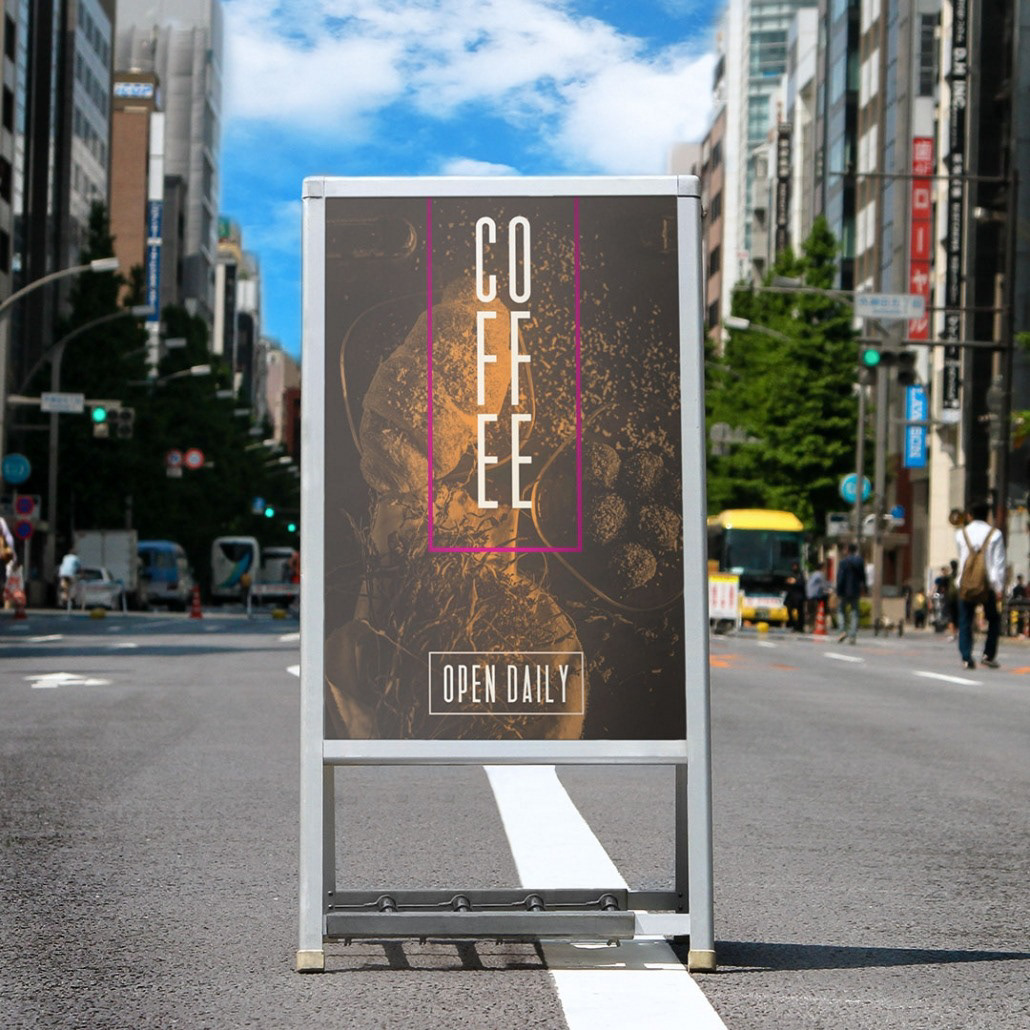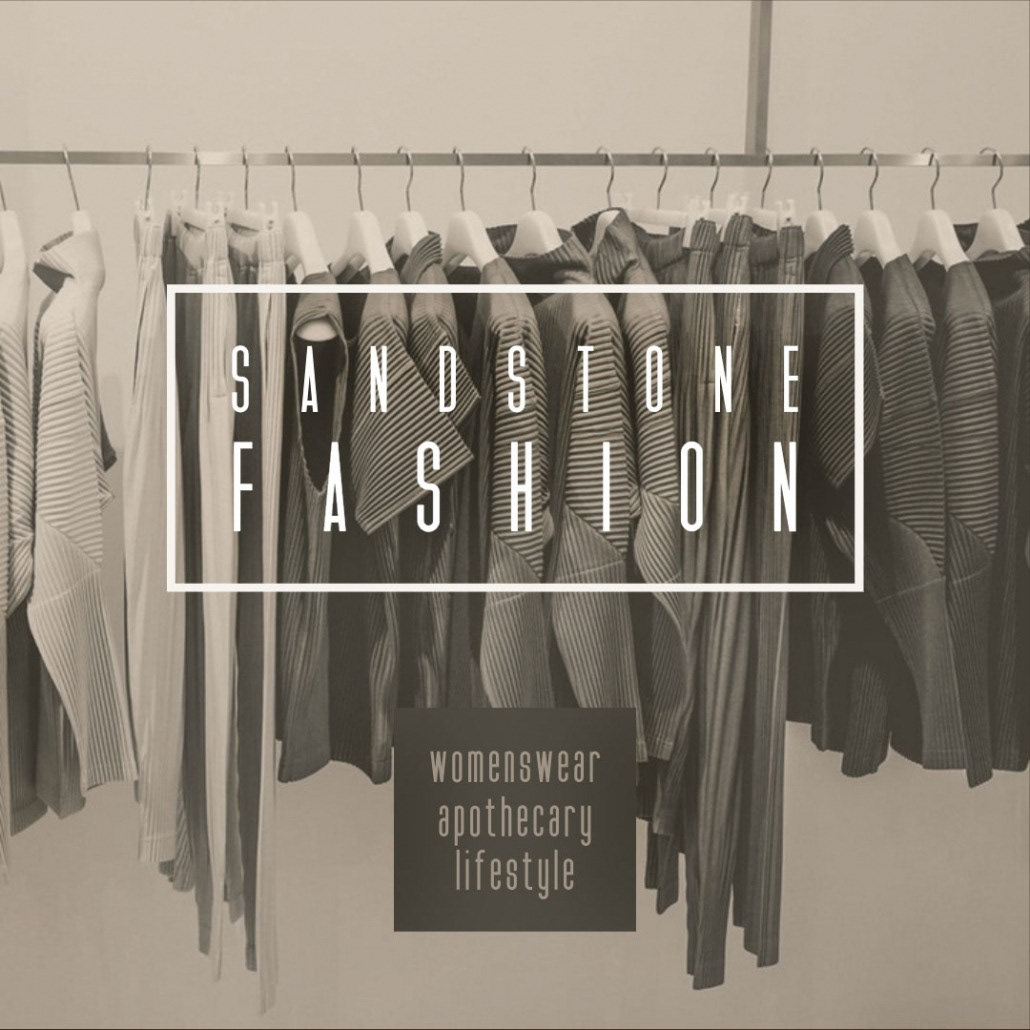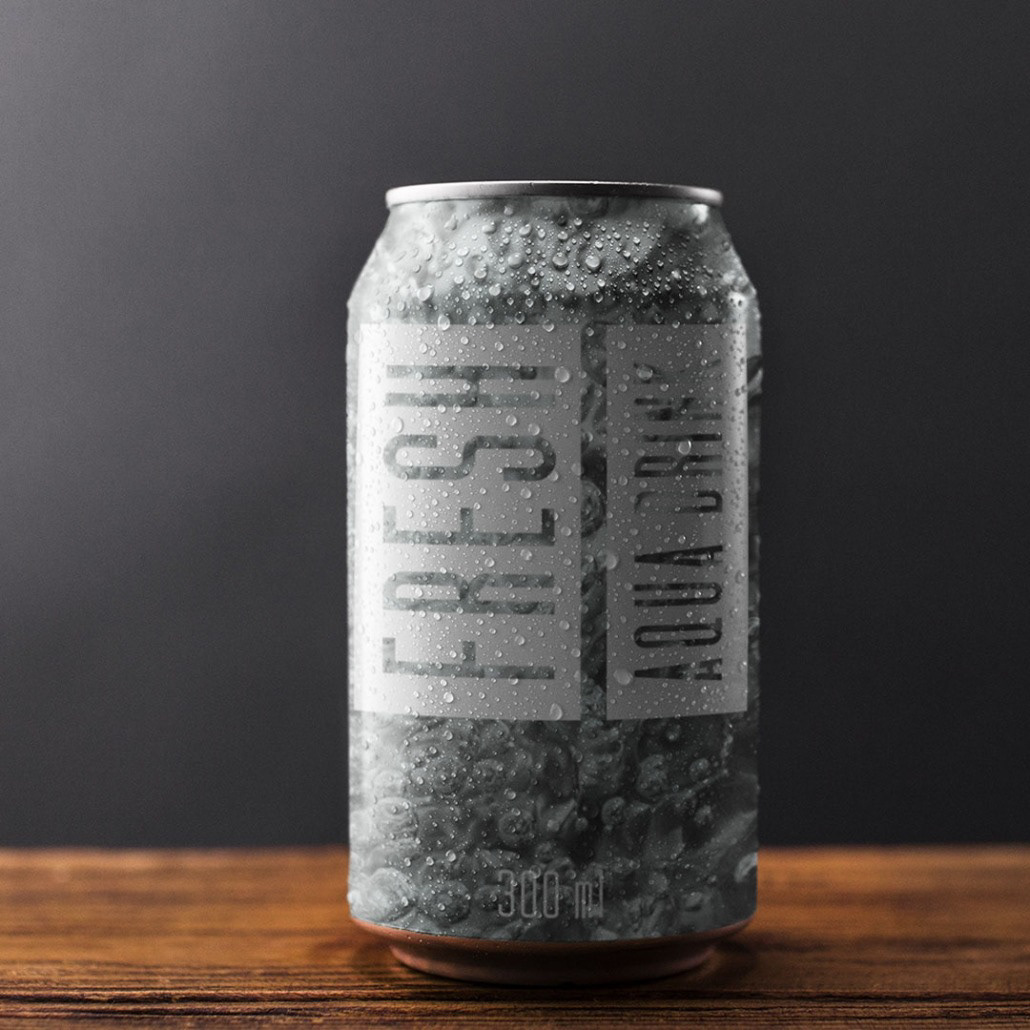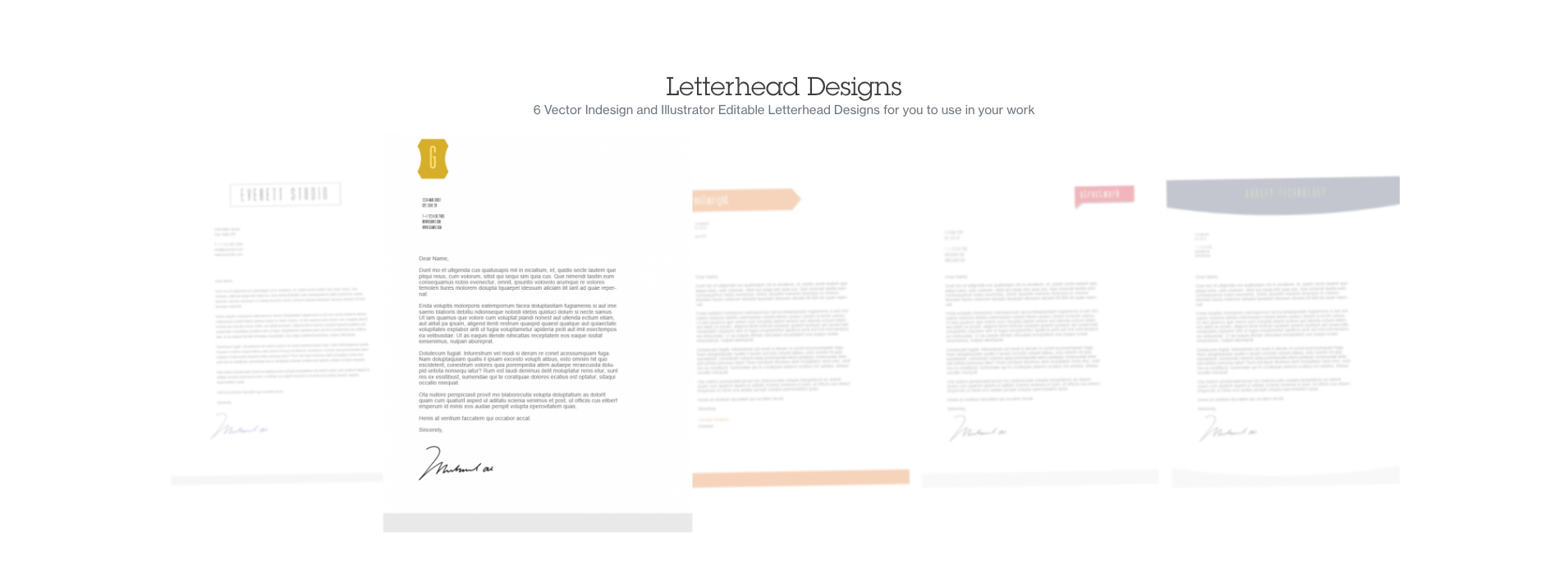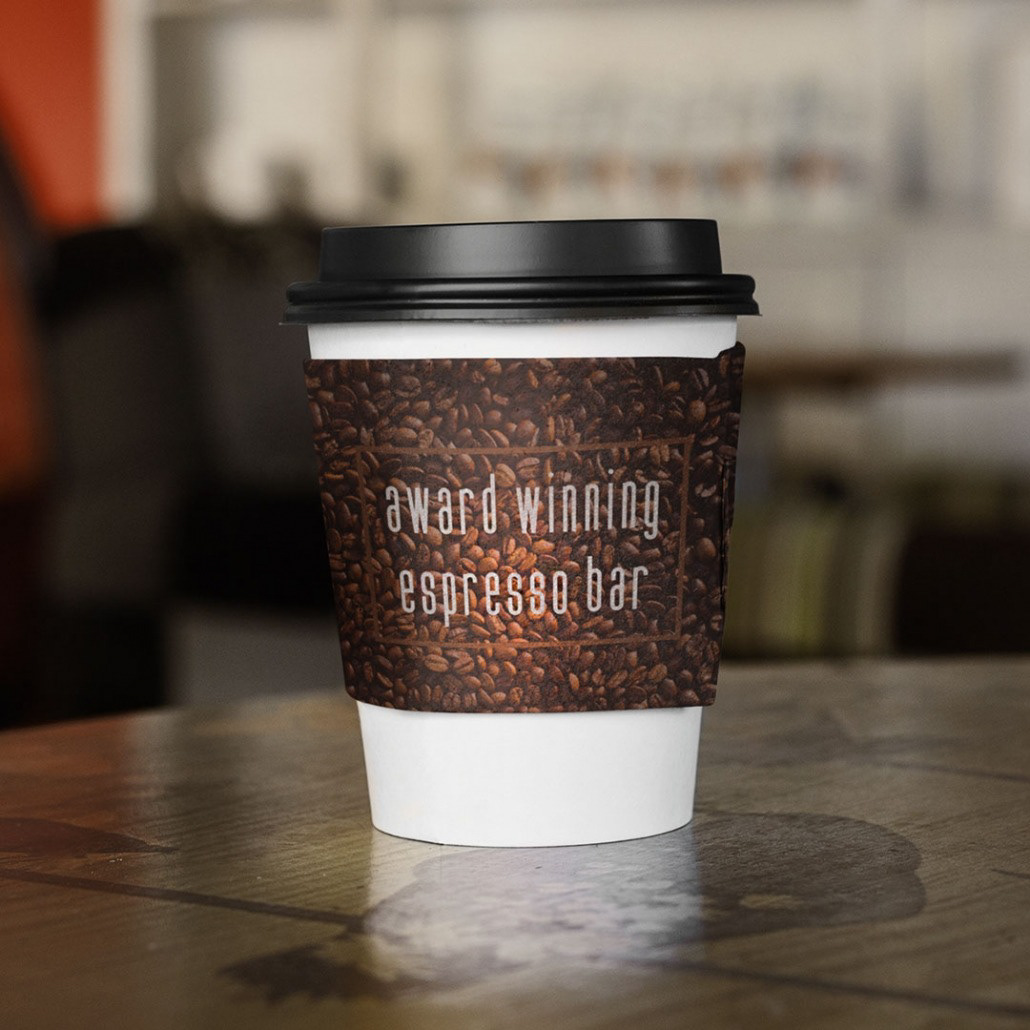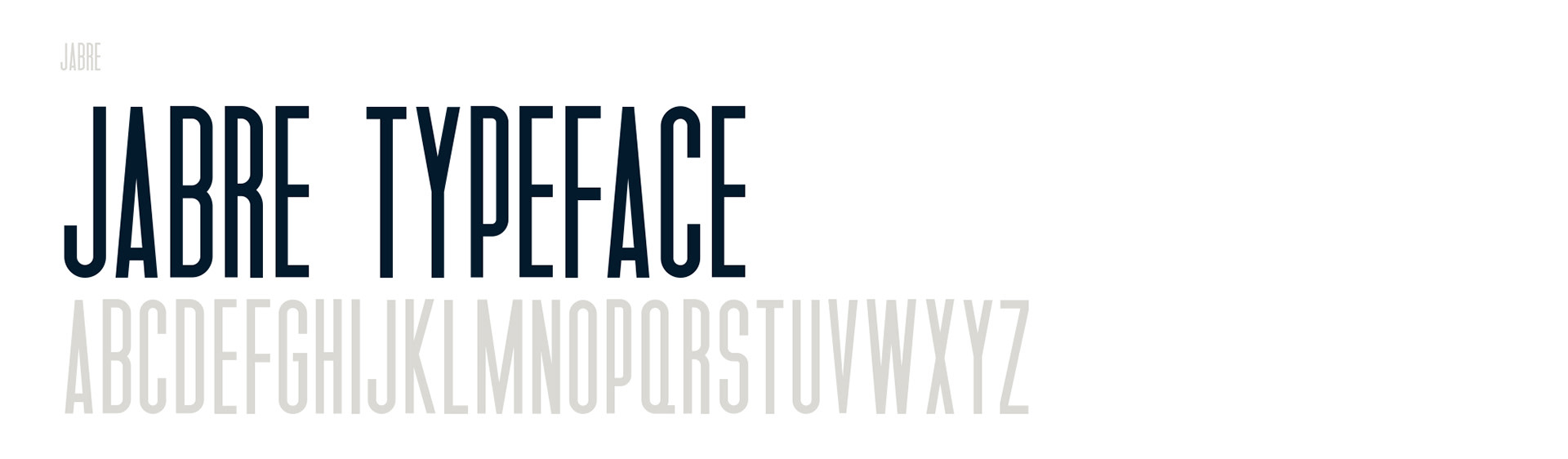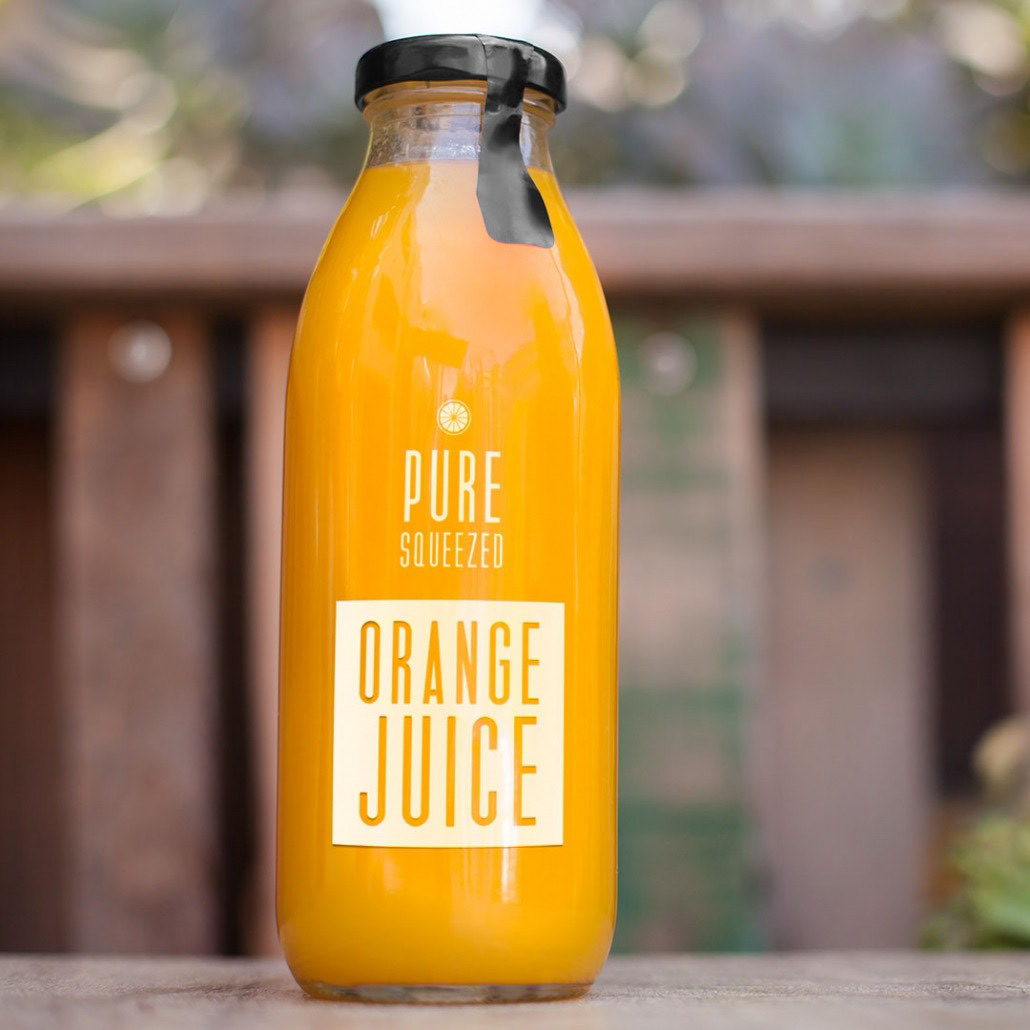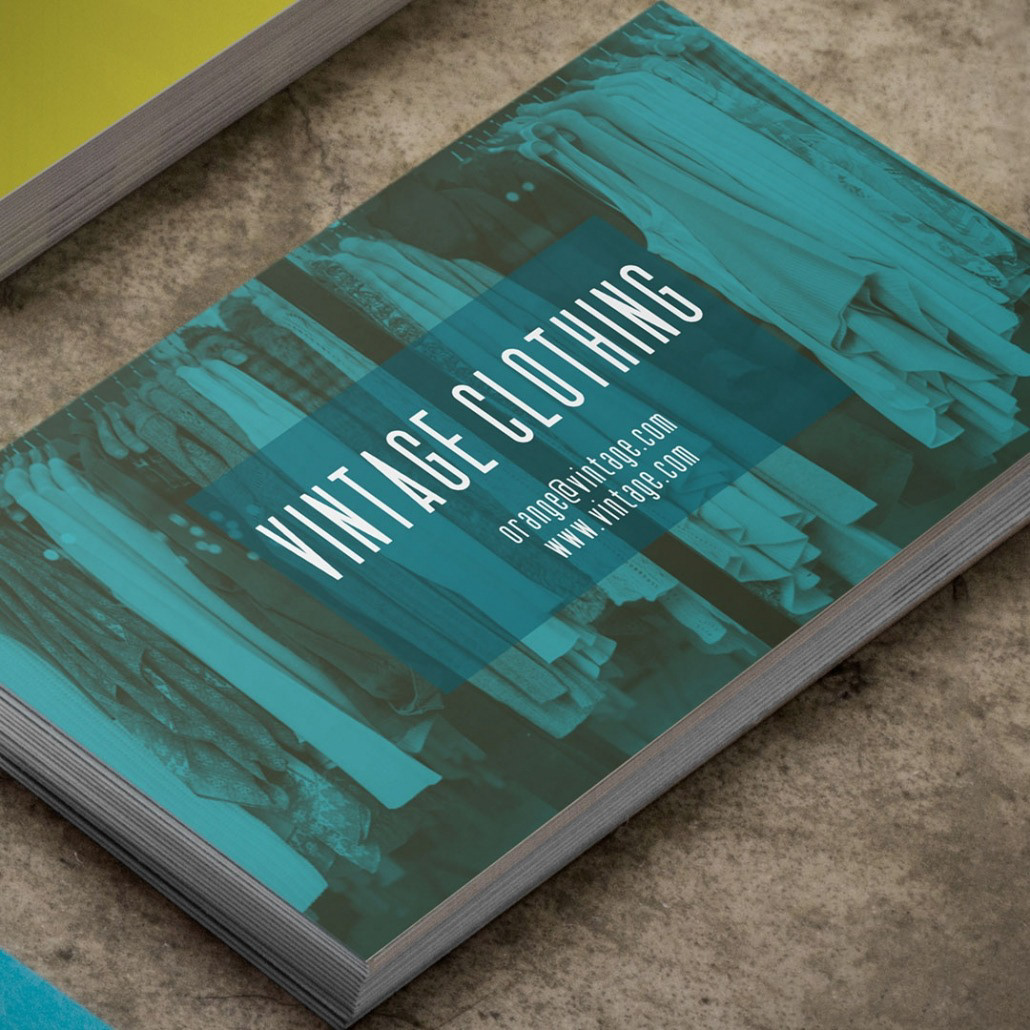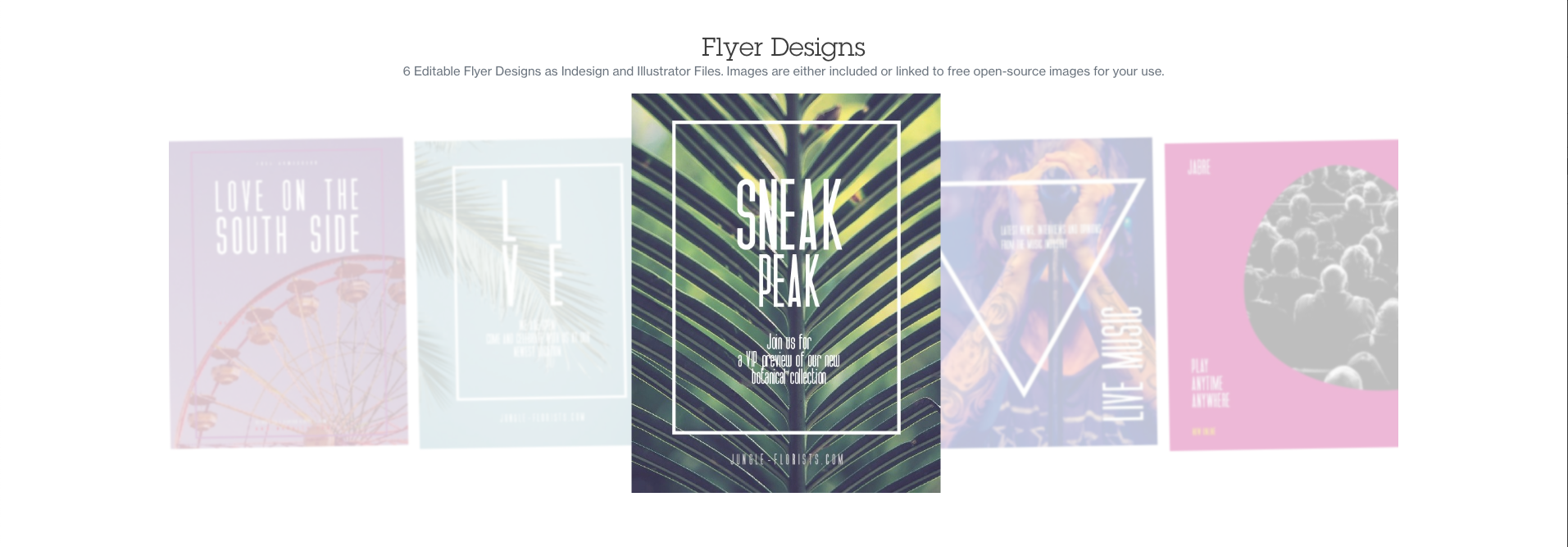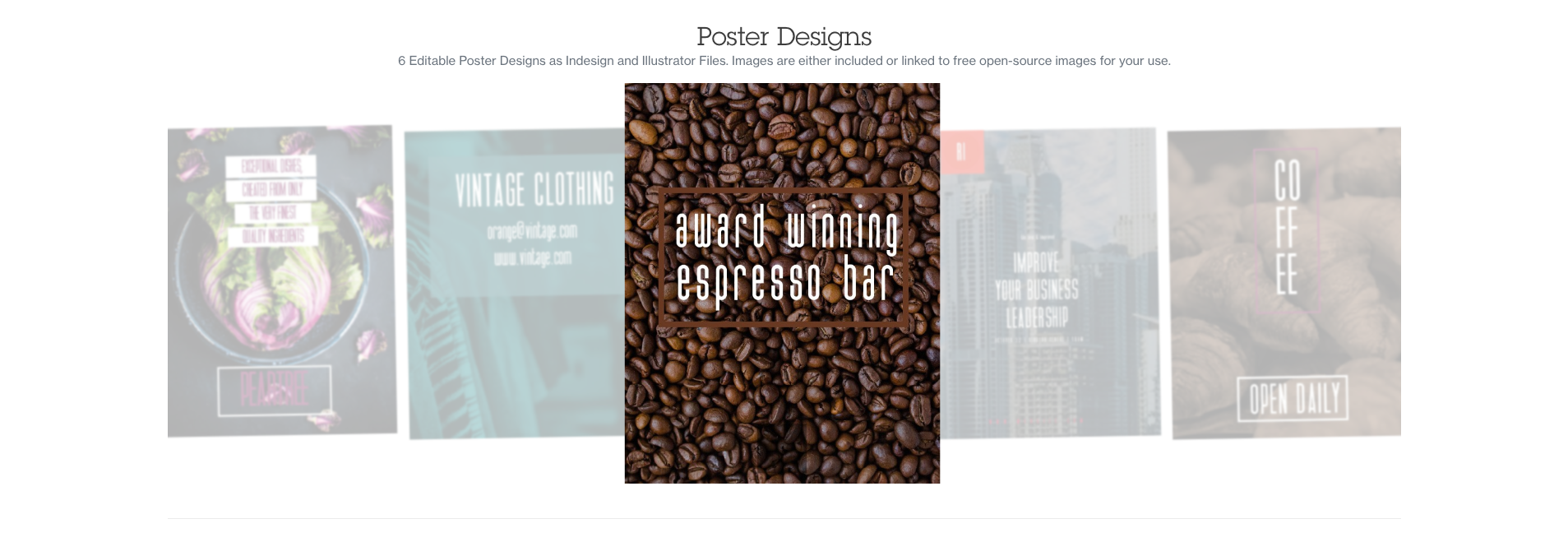
Jabre is an ultra-condensed sans serif font, which is mixed modern-retro design inspired by the text and sign designs from the 1950s. It is ideal for everything big, compact and powerful and you can use with almost any type of design work, including logos, signage, banners, posters, and much more.
This single weight font has an extensive character set with broad language support and many OpenType features included.